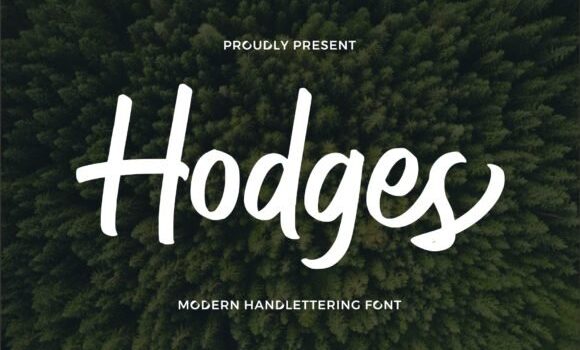
Hodges Font – Free Download Introduction to Hodges Font Hodges is a beautiful handwritten font, created with the help of a brush pen. 📸 Preview Gallery 6 images 📌 Product Name Hodges Font 👤 Author goodjavastudio 📂 Category Explore ⬇️